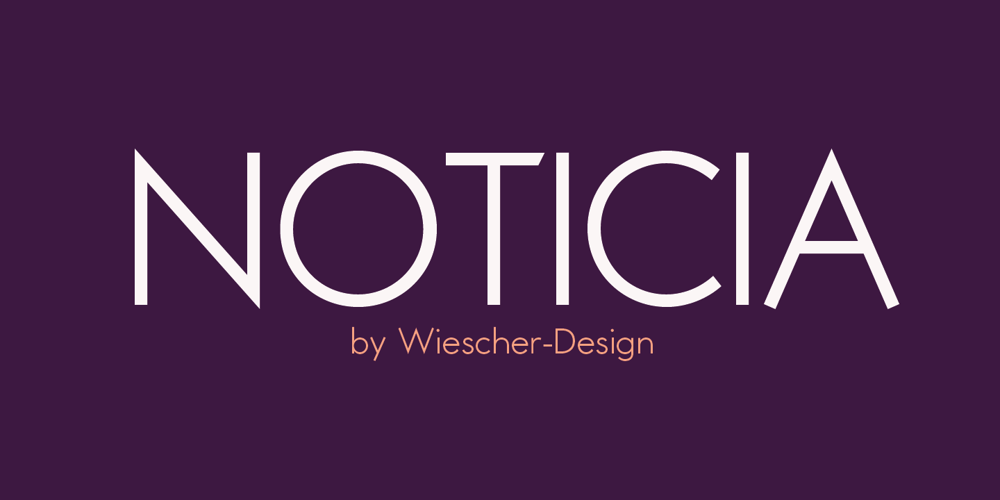
Noticia Font Family was designed by Gert Wiescher and published by Wiescher Design. Noticia contains 15 styles and family package options. »NOTICIA« is my new Sans based on the modernistic, constructivist letterforms of the »Bauhaus« era. The names Herbert Bayer and Paul Renner come to mind as design beacons of that time. »NOTICIA« is different in its proportions and long ascenders and desenders make for good readability, slanted endings on some horizontal strokes give the font more dynamic. The font also has an additional set of medieval ciphers »NOTICIA« brings the old forms up to todays standards in typography. I am now offering these 10 fonts at a sensational family price.